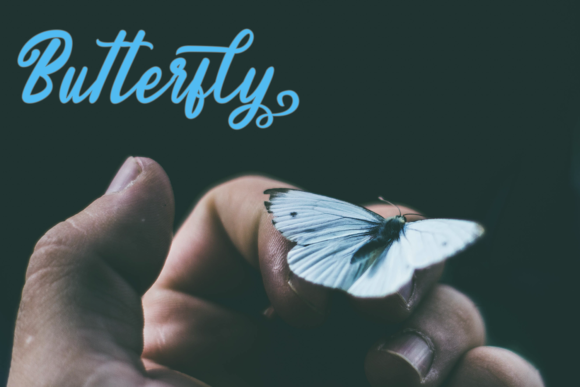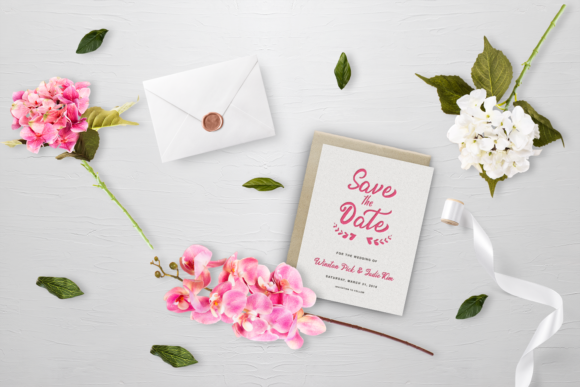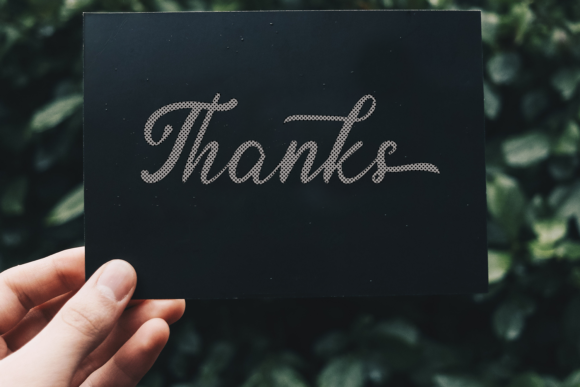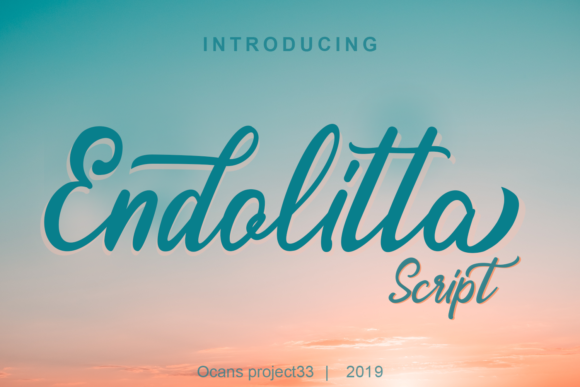
Endolitta Font
The Endolitta is a bold and strong typeface. It had natural movements which are perfect for adding a personal touch to your designs.
It can be used for logos & branding, invitations, stationery, wedding designs, social media posts, advertisements, product packaging, and much more!